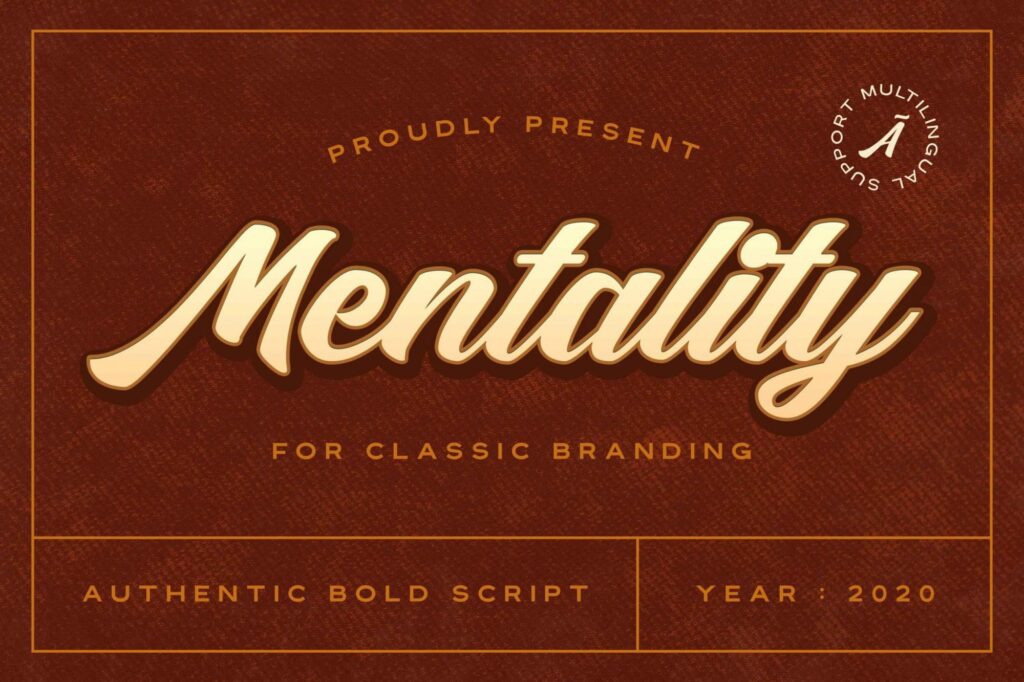
Mentality Modern Bold Script Font
Mentality Font is a modern bold script typeface. Contains a complete set of lowercase, uppercase, alternative, ligature, punctuation, numbers, and multilingual support. Works in harmony with Authem to create awesome calligraphy creations.